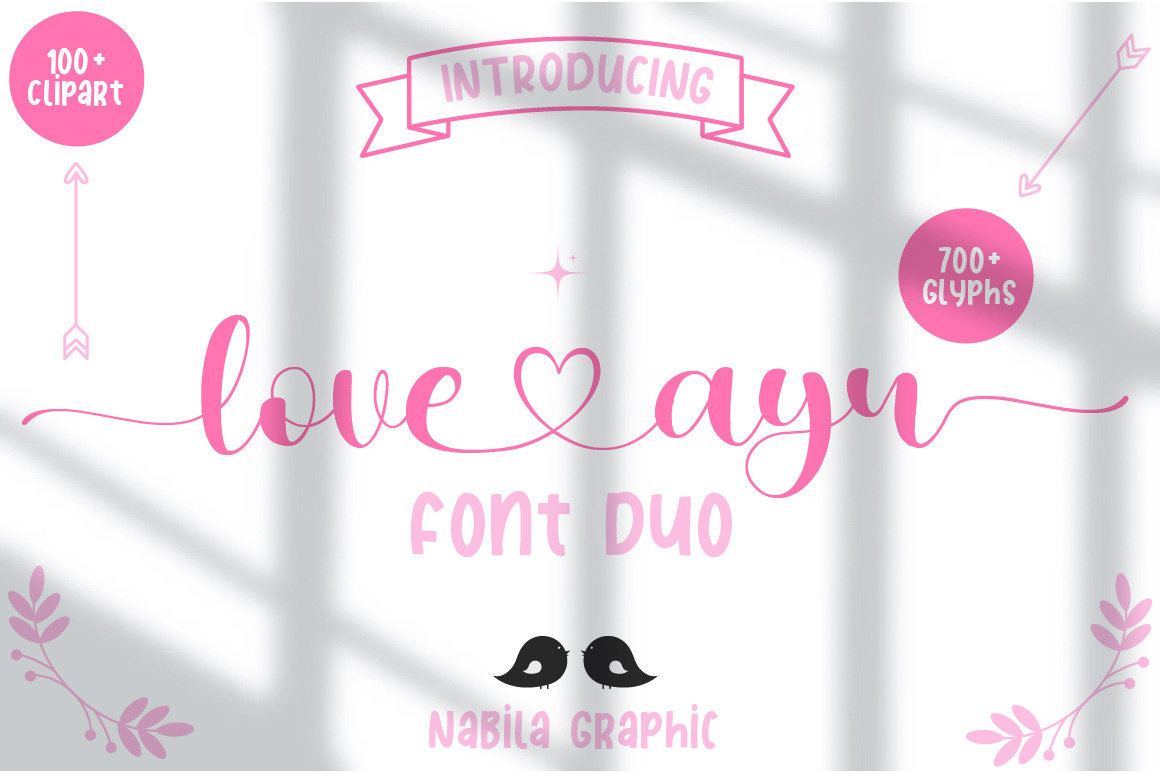
Love Ayu - Wedding Fonts Script Love
Love Ayu a new modern & fresh calligraphy font with a lot of stylistic alternate make this font looks natural, elegant, and perfect for any awesome projects. Love Ayu is perfect for many different project such as wedding designs, logos & branding, invitation, stationery, social media posts, advertisements, product packaging, product designs, label, photography, watermark, special events or anything.